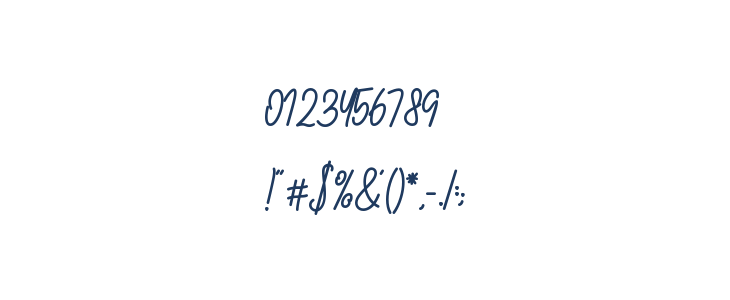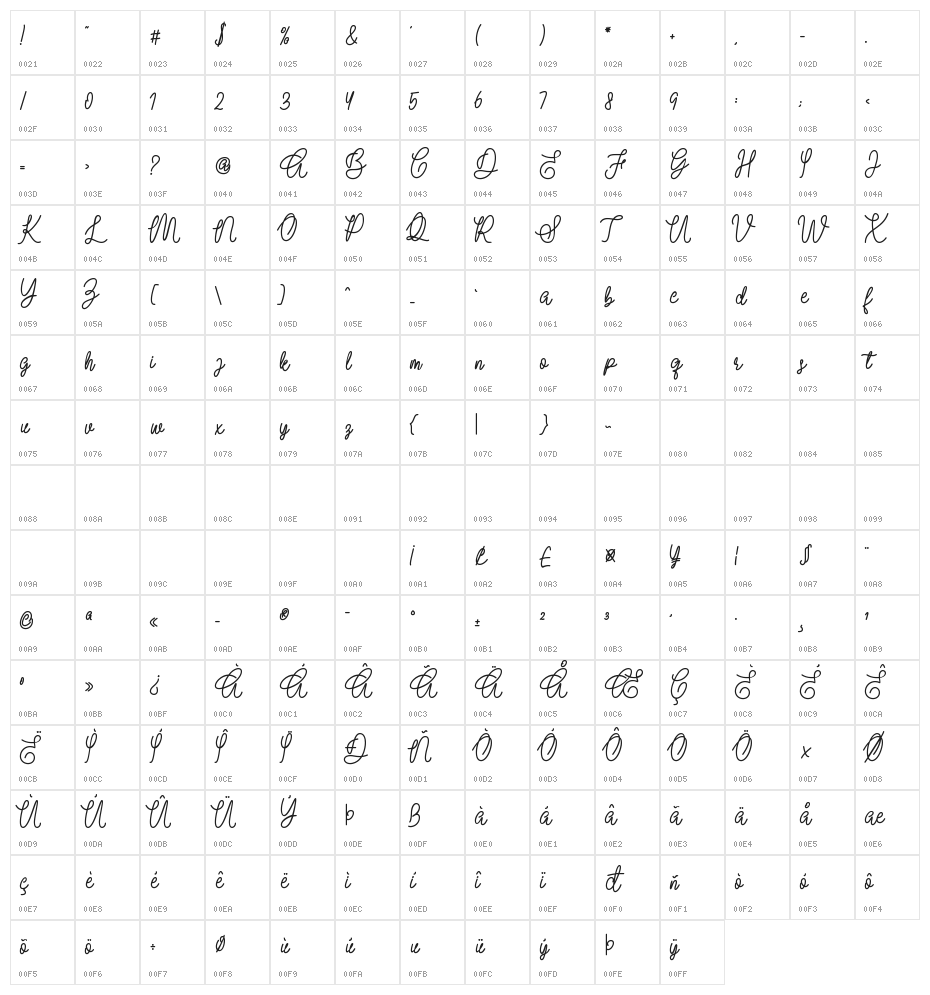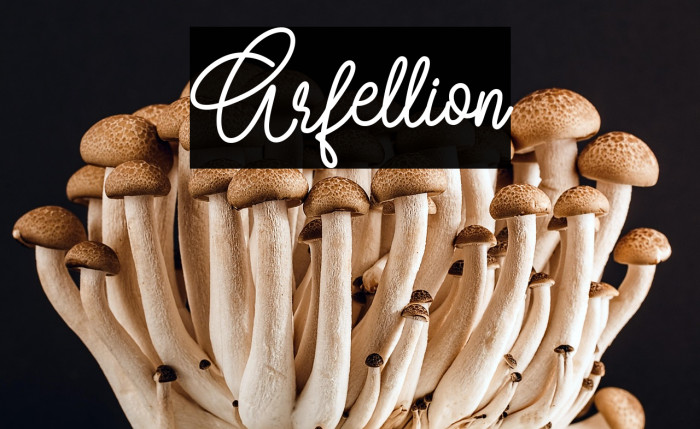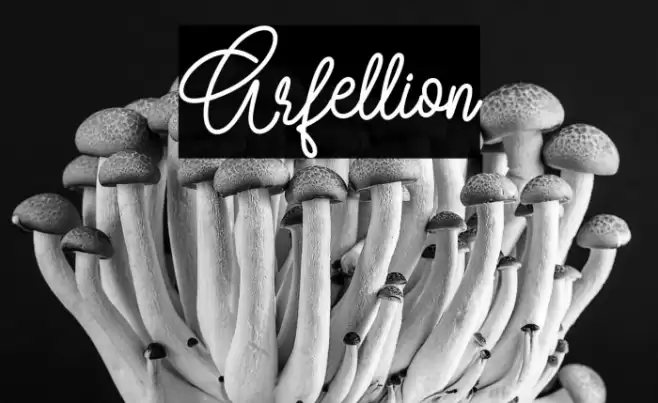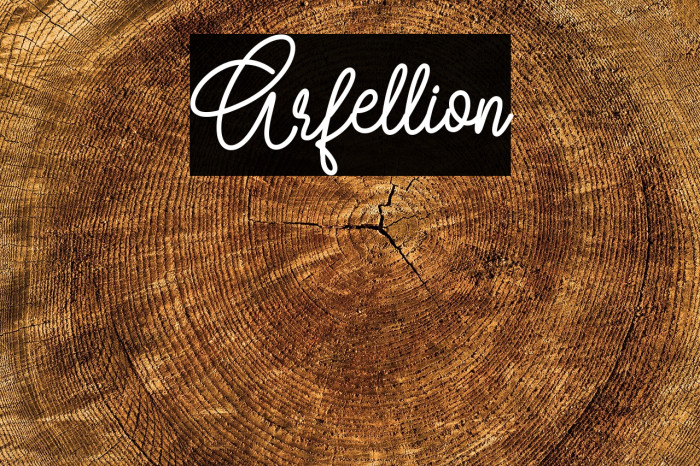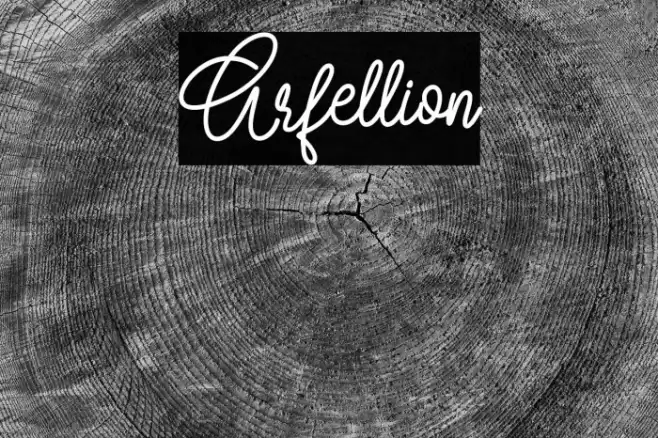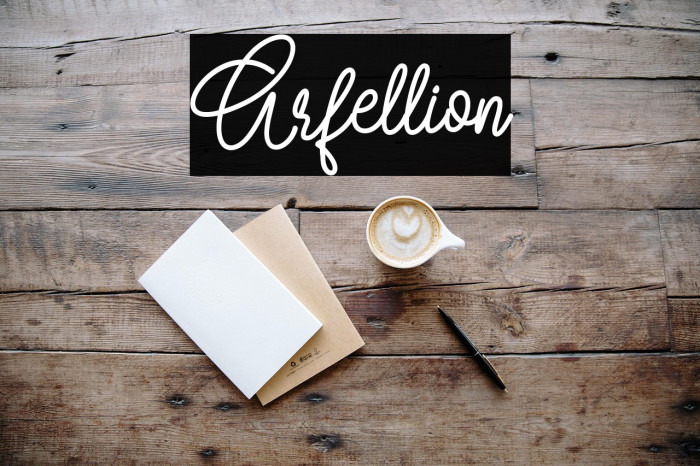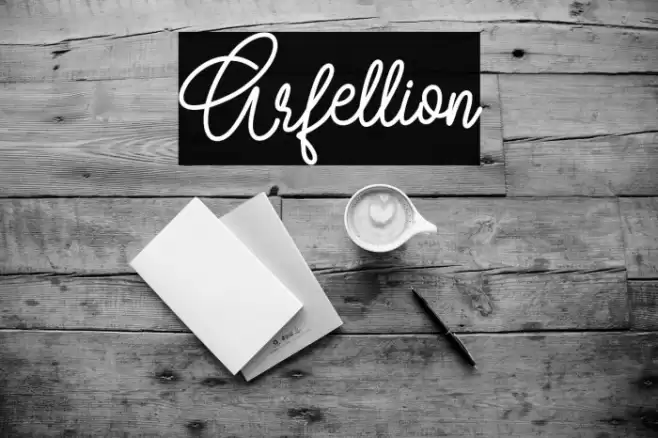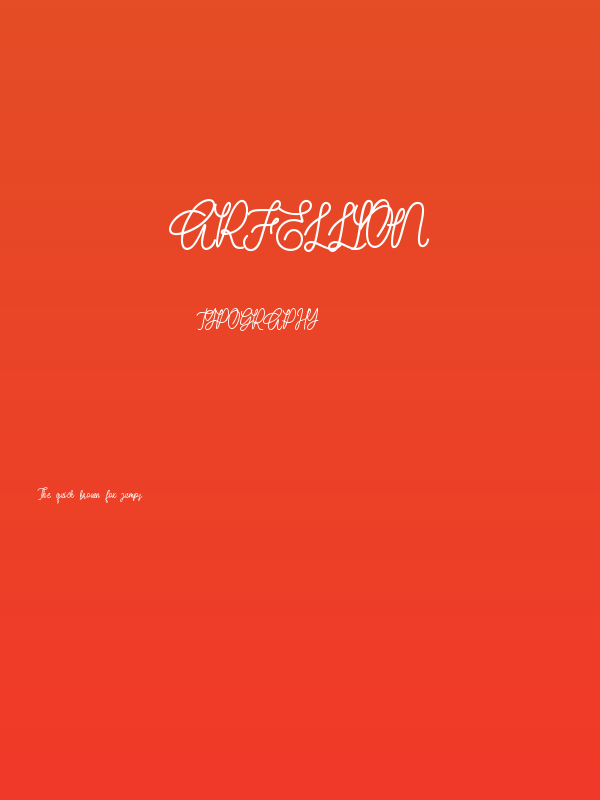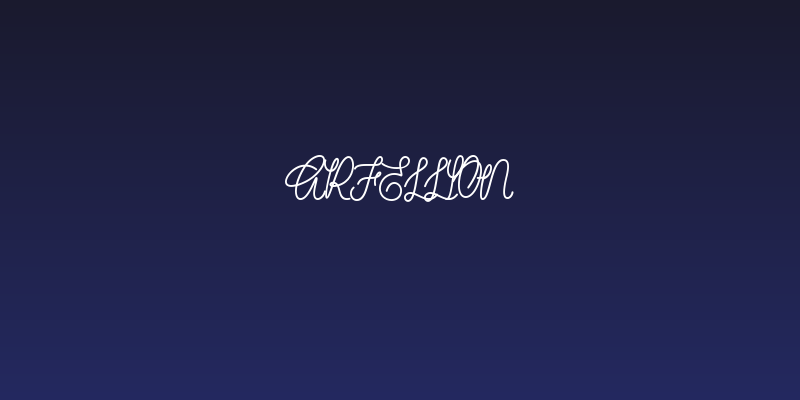
Arfellion Font
Arfellion Description
This font features a flowing, cursive style with elegant loops and swirls, giving it a sophisticated and artistic appearance. The uppercase letters are particularly ornate, with intricate connections between strokes, while the lowercase letters maintain a more straightforward, yet still stylish, script form. The numerals and special characters are consistent with the overall design, offering a cohesive look. This font's fluidity and grace make it ideal for projects that require a touch of elegance and creativity.
| Overall Style | Elegant, Artistic |
| Proposed Projects | Ideal for wedding invitations, greeting cards, personal branding, and artistic projects. |